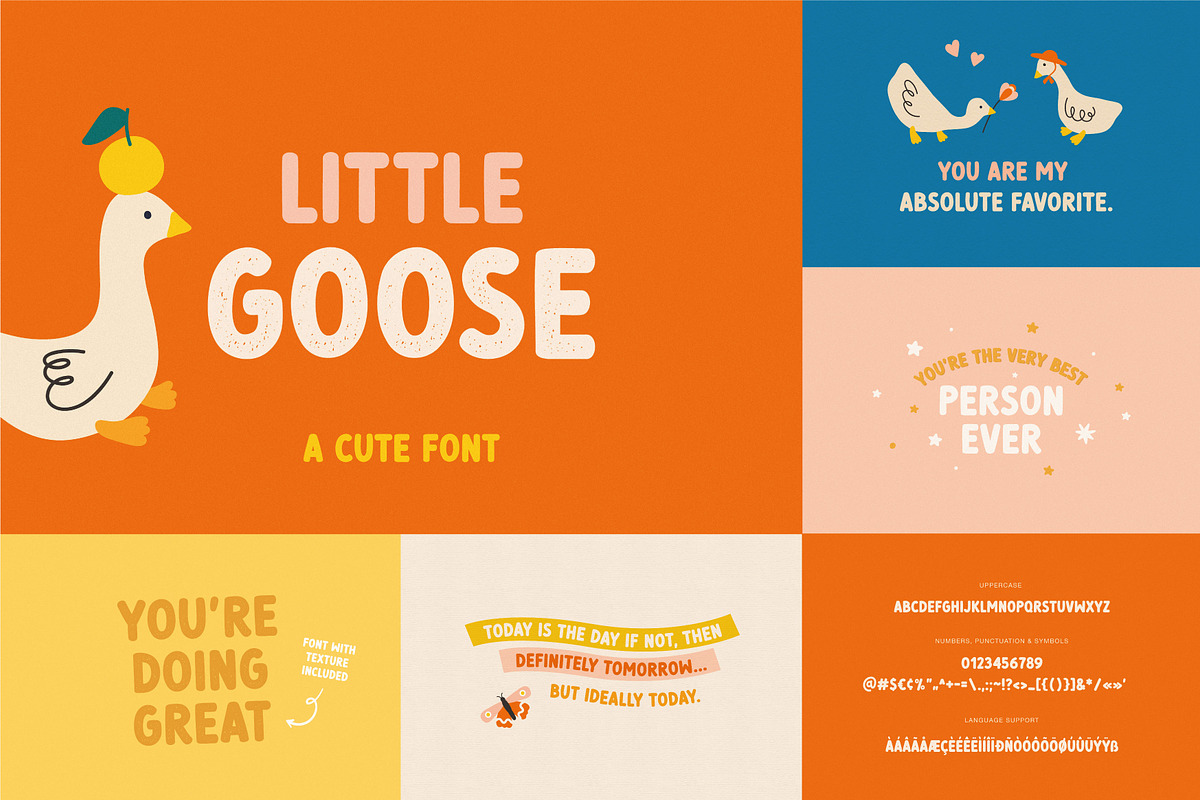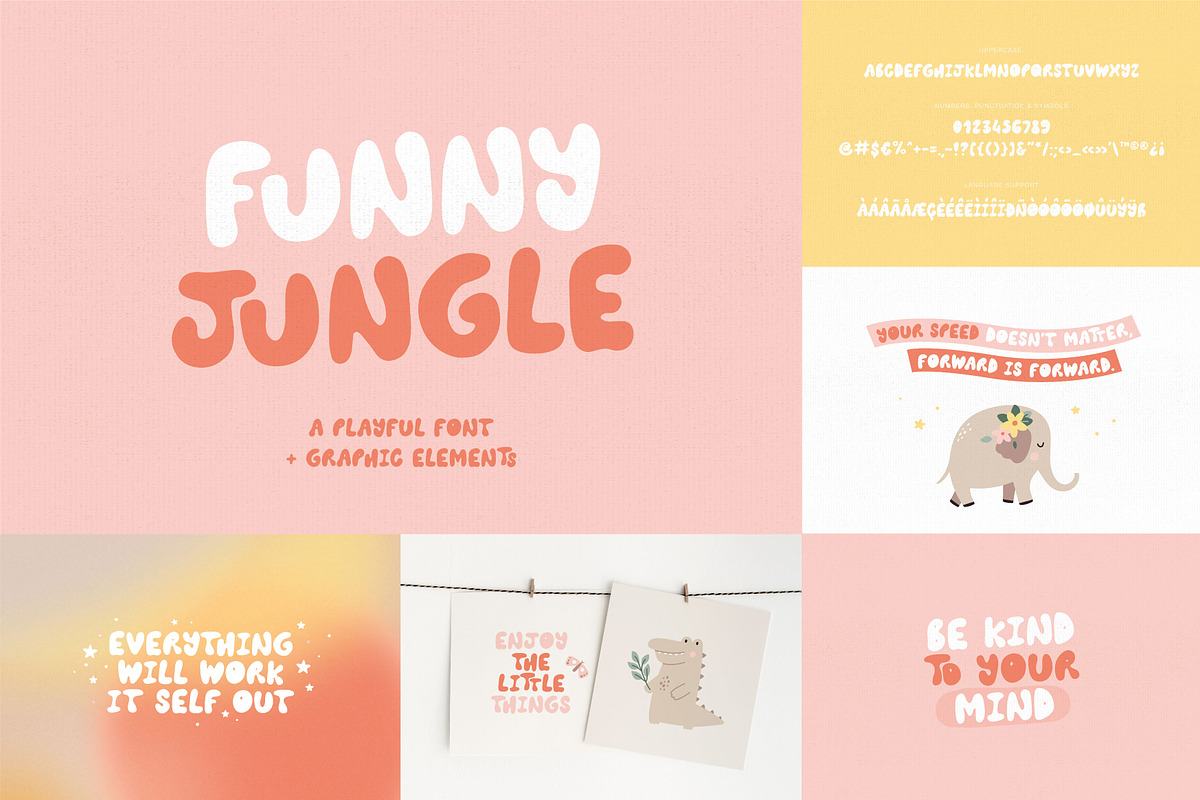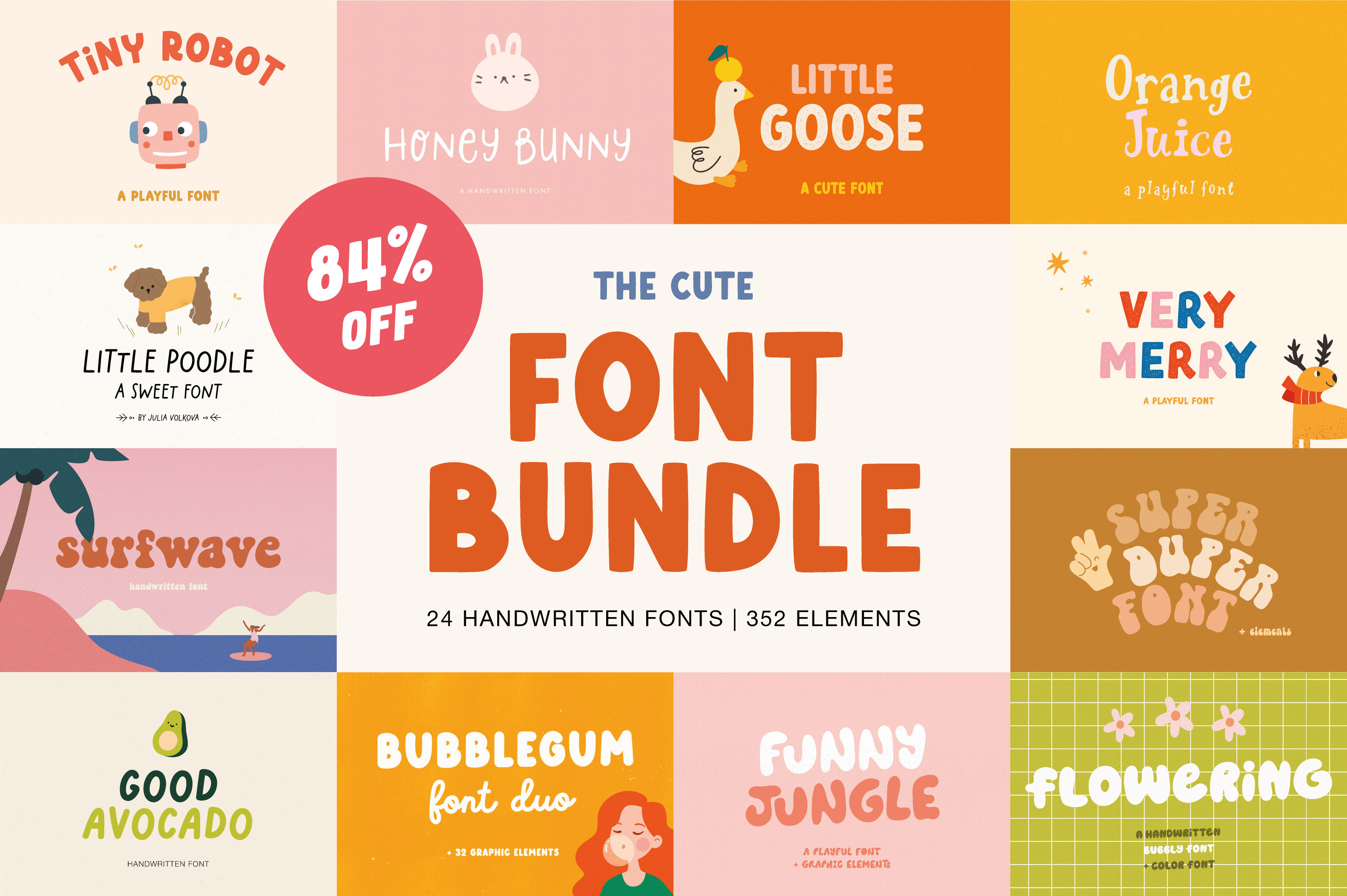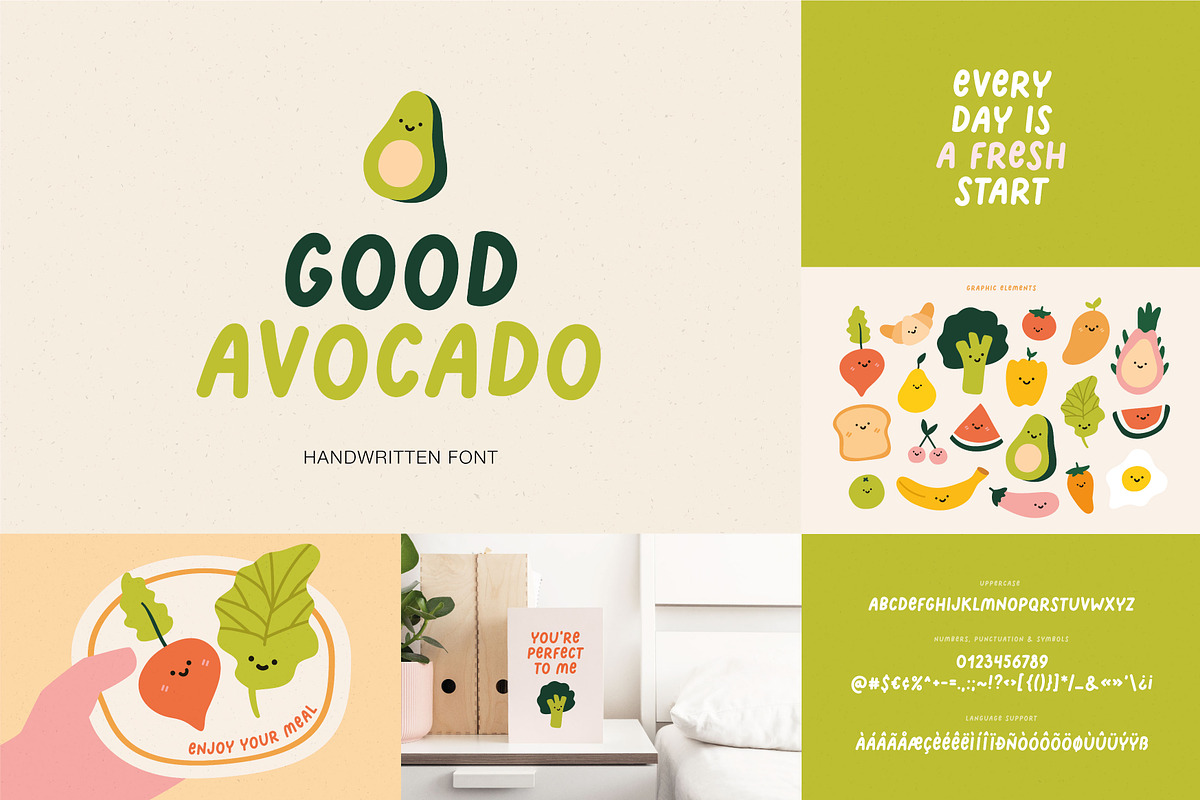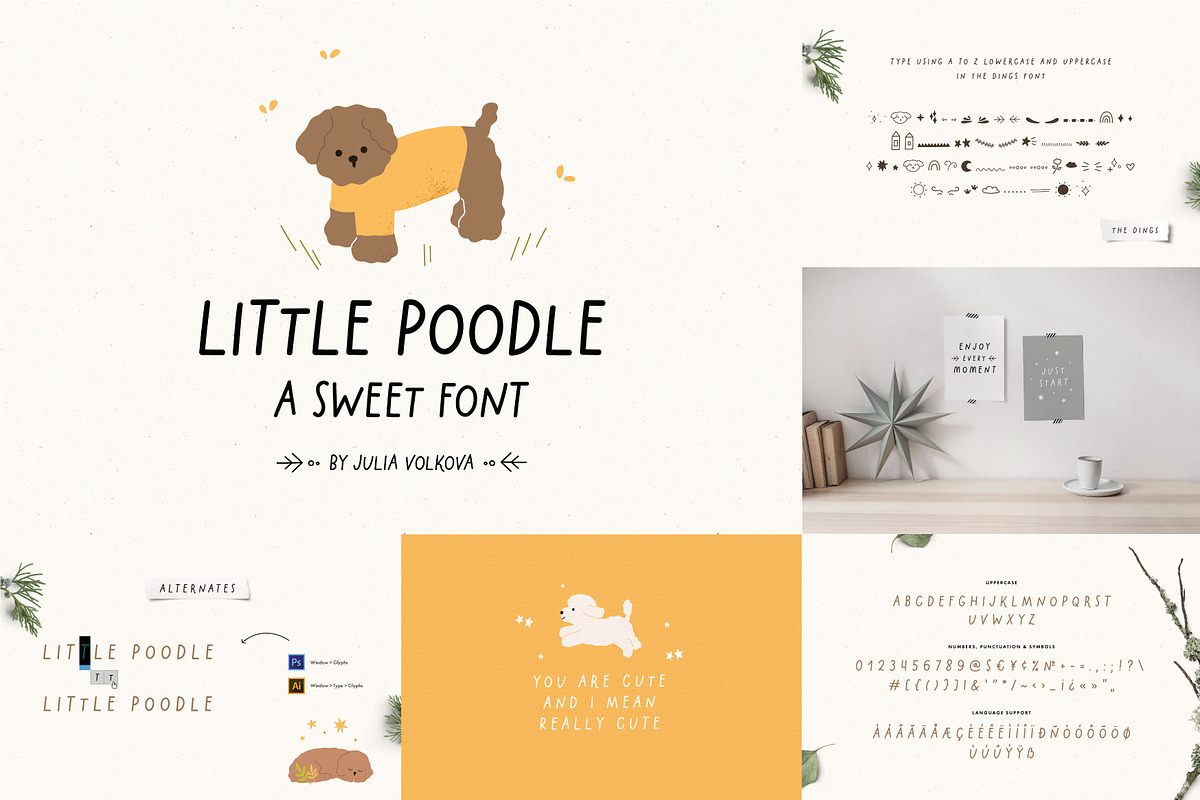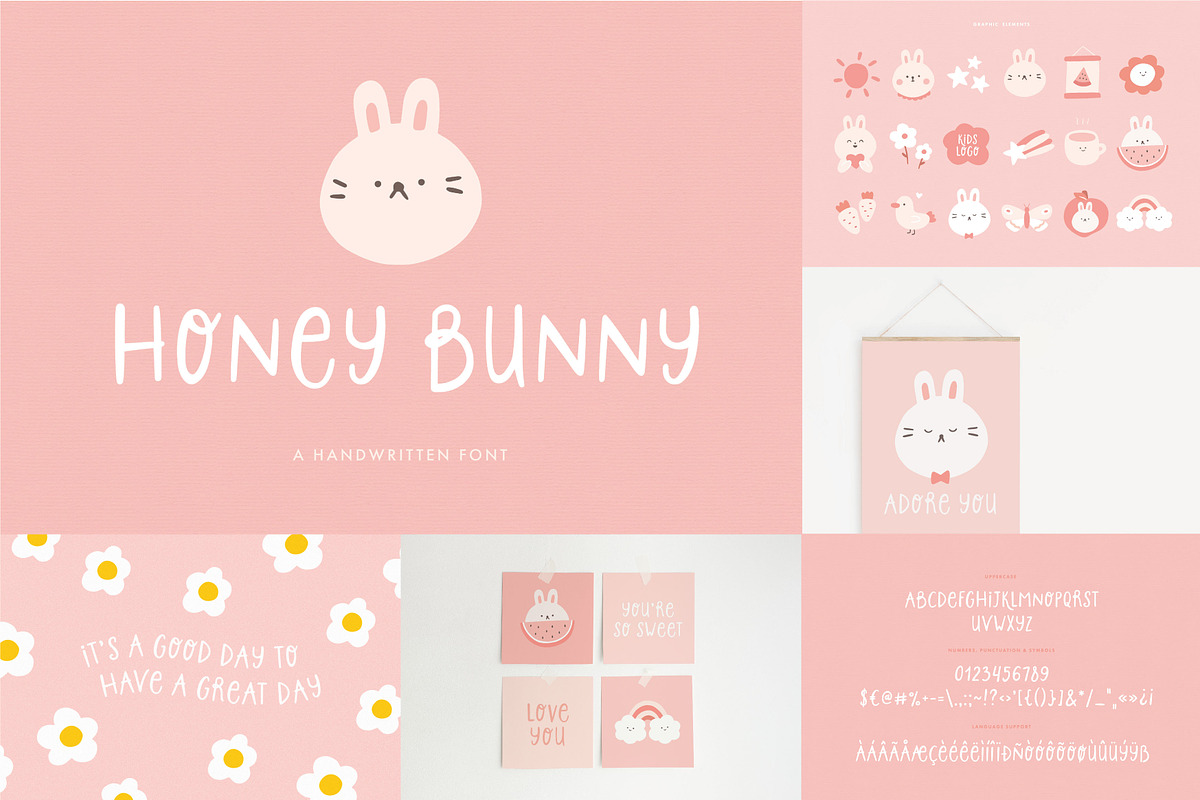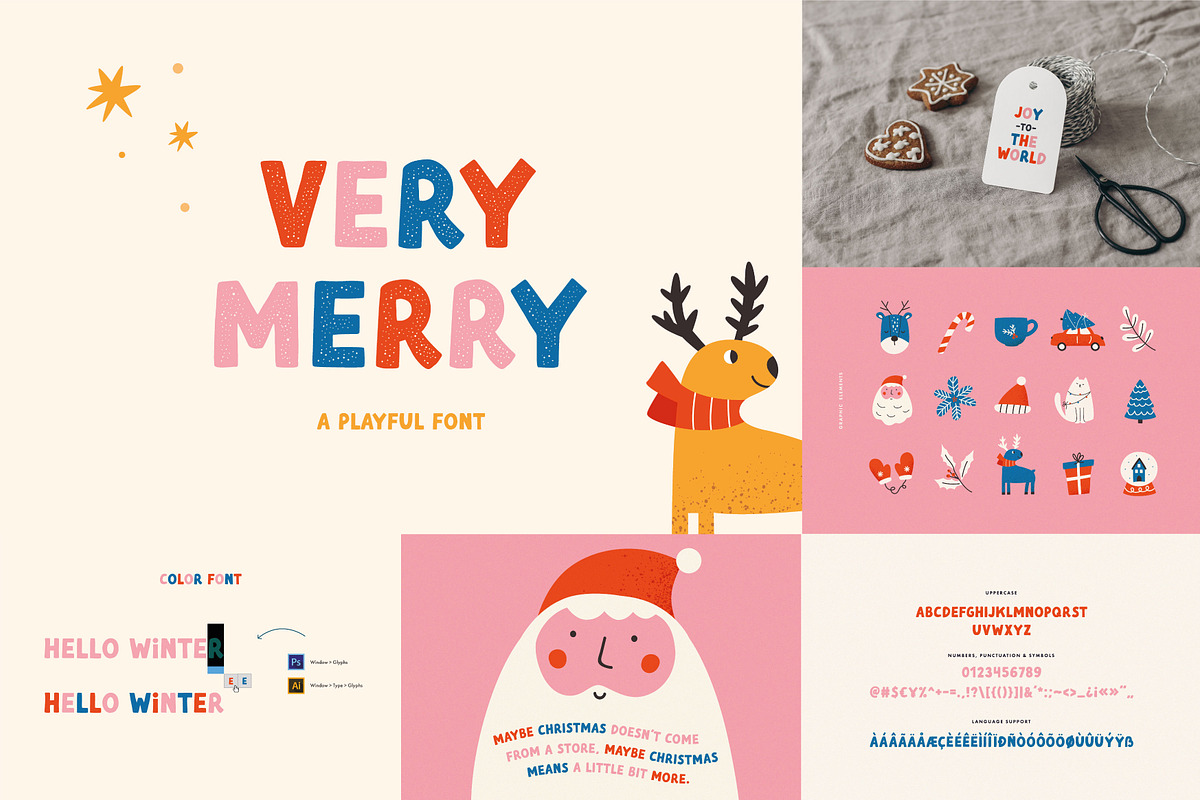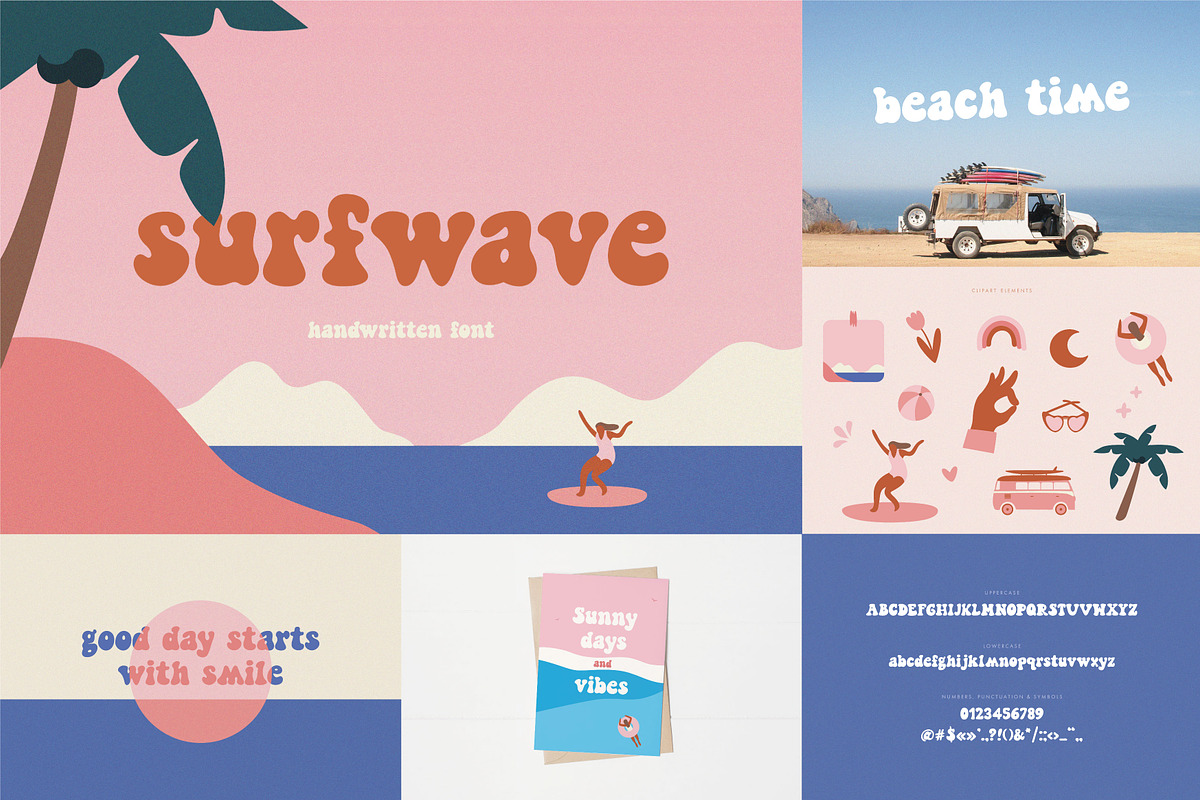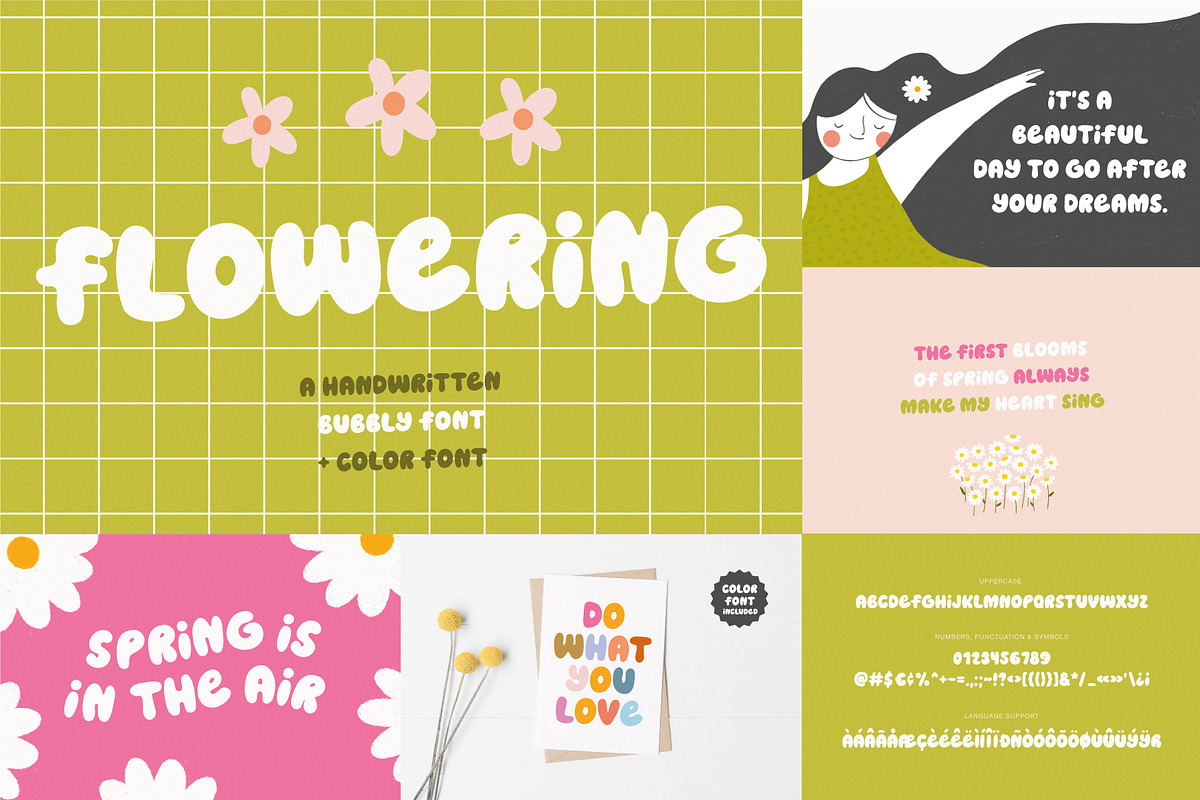
Cute Font BUNDLE
The cute font bundle - a set of 24 handwritten fonts and 352 a fun graphic design elements. Hand drawn style provides an imperfect look, great to add a handmade touch to your projects.
- Little goose | Cute font https://crmrkt.com/gj7VGo
- Very Merry | Playful font https://crmrkt.com/Rg0j48
- Flowering | Bubbly font https://crmrkt.com/Qg2xRo
- Surfwave | Handwritten font https://crmrkt.com/XgWya0
- Bubblegum | Font duo https://crmrkt.com/1P1bEW
- Funny Jungle | Playful font https://crmrkt.com/qOgKE9
- Super Duper | Handwritten font https://crmrkt.com/zRBkm5
- Tiny robot | Playful font https://crmrkt.com/Vg6MJ1
- Little poodle | Sweet font https://crmrkt.com/N10Qyd
- Honey Bunny | Handwritten font https://crmrkt.com/5e92PR
- Orange Juice | Playful font https://crmrkt.com/zRqvGM
- Good Avocado | Handwritten font https://crmrkt.com/dGbxoK